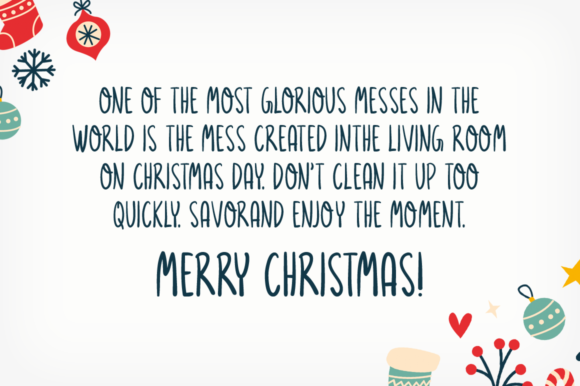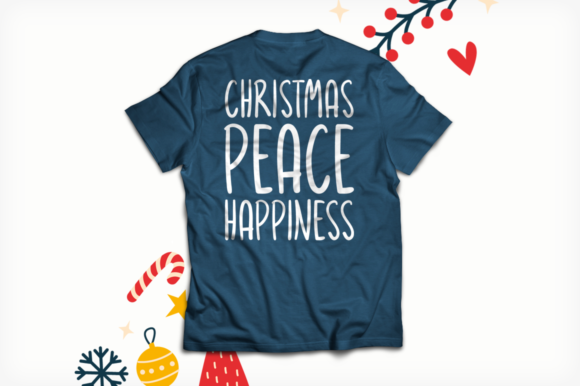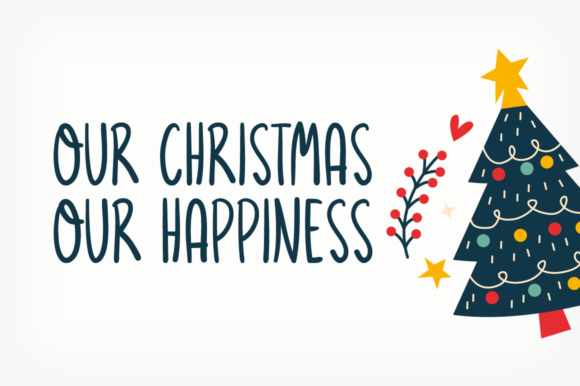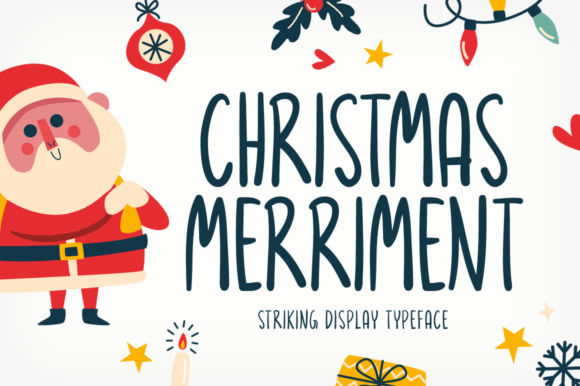
Introducing Christmas Merriment Font: A Natural and Simple Lettered Display Font
Are you looking for a font that embodies the spirit of Christmas? Do you want to add a touch of warmth and coziness to your designs? Look no further than Christmas Merriment Font, a natural and simple lettered display font that’s perfect for a wide range of applications.
What is Christmas Merriment Font?
Christmas Merriment Font is a beautifully crafted font that’s designed to evoke the feeling of a winter wonderland. With its natural and simple lettering style, it’s perfect for creating festive and inviting designs that capture the essence of the holiday season.
Key Features of Christmas Merriment Font
- Natural and Simple Lettering Style: Christmas Merriment Font features a beautiful, handwritten lettering style that’s both natural and simple.
- Perfect for Display Purposes: This font is designed specifically for display purposes, making it perfect for headlines, titles, and other prominent text elements.
- Versatile and Flexible: Christmas Merriment Font can be used for a wide range of applications, from stationery and logos to t-shirts and print design.
- Easy to Read: Despite its decorative nature, Christmas Merriment Font is surprisingly easy to read, making it perfect for use in body text as well as headlines.
Uses for Christmas Merriment Font
So, what can you use Christmas Merriment Font for? The possibilities are endless! Here are just a few ideas to get you started:
- Stationery: Create beautiful Christmas cards, invitations, and gift tags with Christmas Merriment Font.
- Logos: Use Christmas Merriment Font to create a festive and memorable logo for your business or brand.
- T-Shirts and Apparel: Design eye-catching t-shirts, hoodies, and other apparel with Christmas Merriment Font.
- Print Design: Use Christmas Merriment Font in your print designs, such as brochures, flyers, and posters.
- Website Header: Add a touch of Christmas cheer to your website with Christmas Merriment Font in your header.
- Photo Frame and Picture Frame: Use Christmas Merriment Font to add a festive touch to your photo frames and picture frames.
- Flyers and Posters: Create eye-catching flyers and posters with Christmas Merriment Font.
- Music Cover and Album Art: Use Christmas Merriment Font to design beautiful music covers and album art.
- Image Slider and Presentation: Add a touch of elegance to your image slider and presentation with Christmas Merriment Font.
Why Choose Christmas Merriment Font?
So, why should you choose Christmas Merriment Font for your next design project? Here are just a few reasons:
- Unique and Festive: Christmas Merriment Font is a unique and festive font that’s sure to stand out in any design.
- Easy to Use: This font is incredibly easy to use, even for those with limited design experience.
- High-Quality Design: Christmas Merriment Font is designed to the highest standards, ensuring a crisp and clear appearance in any design.
- Versatile: This font can be used for a wide range of applications, making it a great addition to any designer’s toolkit.
Christmas Merriment Font is a beautiful and versatile font that’s perfect for adding a touch of Christmas cheer to your designs. With its natural and simple lettering style, it’s ideal for a wide range of applications, from stationery and logos to t-shirts and print design. So why wait? Download Christmas Merriment Font today and start creating your own festive and inviting designs!